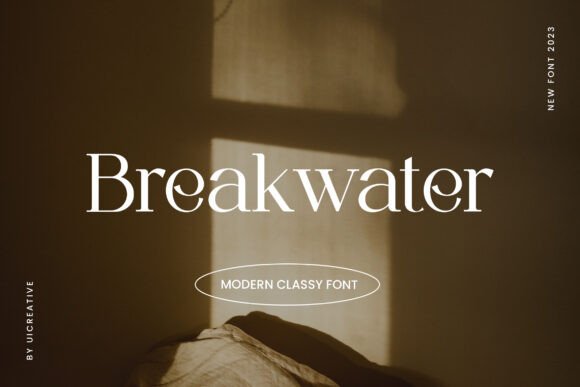
The Breakwater Font: Elevate Your Designs with Elegance and Style
Have you ever been in the middle of a design project, and suddenly, you’re stuck on finding the perfect font? I recall a recent experience where a client asked for a sophisticated, elegant look for their branding, and I was on a mission to find the ideal typeface. That’s when I discovered the Breakwater Modern Serif Font, and it instantly became my go-to choice. In this article, I’ll share my journey with this beautiful font, its features, and how you can make the most of it in your designs.
A Personal Review: What I Love About Breakwater
The Breakwater Modern Serif Font has quickly become a favorite in my design arsenal. Here’s what I love about it:
- ✨ Elegant and Classy: The font exudes a sense of sophistication and luxury, making it perfect for high-end branding and designs.
- ✅ Versatile: Breakwater is suitable for a wide range of projects, from signatures and stationery to logos, wedding designs, and magazine covers.
- 💡 Masculine and Feminine Qualities: This font seamlessly blends both masculine and feminine qualities, making it ideal for fashion-related branding and editorial designs.
- 🌈 Modern and Fresh: The modern serif design gives Breakwater a fresh and contemporary feel that’s sure to make your designs stand out.
While Breakwater is an excellent font, there are a few minor quirks to be aware of:
- 🤔 Limited Use of All-Caps: While the font looks great in all-caps, it’s not the most optimal choice for lengthy texts in uppercase. Consider using it for headings or titles instead.
- ⚠️ Glyphs and OpenType Features: Some users might find the glyphs and OpenType features a bit tricky to navigate. However, with a little practice, you’ll get the hang of it!
The Story Behind Breakwater
The Breakwater Modern Serif Font was designed with the intention of creating a beautiful, elegant, and versatile typeface. Inspired by the clean lines and simplicity of modern design, the font’s creator aimed to craft a serif font that exudes sophistication and luxury. With its unique blend of masculine and feminine qualities, Breakwater has quickly become a popular choice among designers.
| What type of projects is Breakwater suitable for? | Breakwater is suitable for a wide range of projects, including signatures, stationery, logos, wedding designs, magazine covers, and more. |
| Does Breakwater support OpenType features? | Yes, Breakwater supports OpenType features, including glyphs and stylistic alternates. |